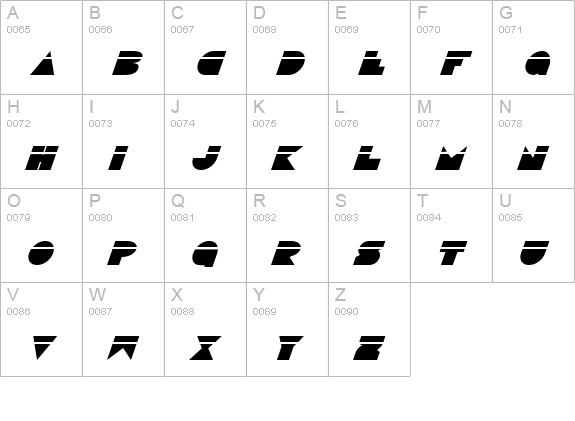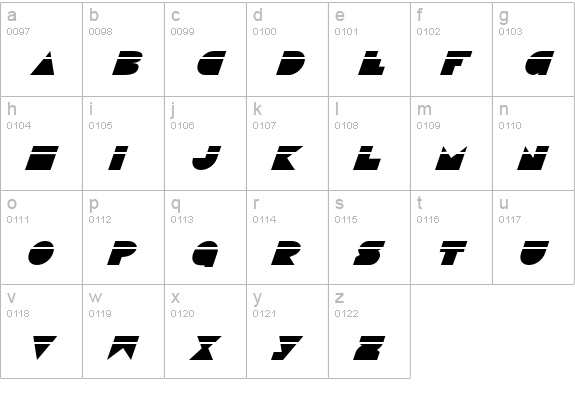
Disco Deck Laser Italic is a distinctive, italic variant in the Disco typeface family \xE2\x80\x94 well suited to design and typography projects.
Introducing Disco Deck Laser Italic font, a groovy and vibrant typeface that brings the energetic spirit of the disco era to your designs. With its sleek lines and futuristic style, this font is perfect for adding a touch of retro flair to posters, album covers, or party invitations. And the best part? Disco Deck Laser Italic font is available for free download at FontsMarket.com! Embrace the disco fever and let your creativity shine with this dynamic and eye-catching font. Whether you're working on a project that needs a bold statement or just want to add a bit of fun to your designs, Disco Deck Laser Italic font is the perfect choice. Download it now and get ready to boogie down with your design projects!